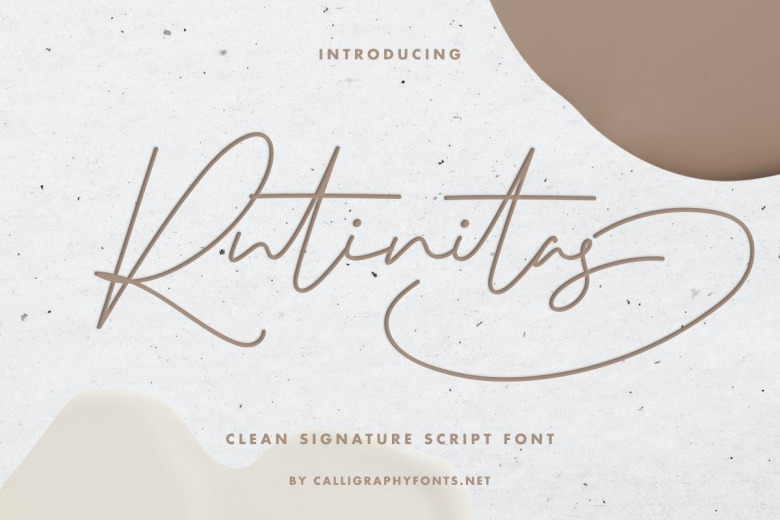
Rutinitas Font
Rutinitas Signature Script Font is a handwritten script font with an exclusive style. The theme of this font are minimalist, signature, modern, elegant, luxury, glamour, classic and simple lettering.